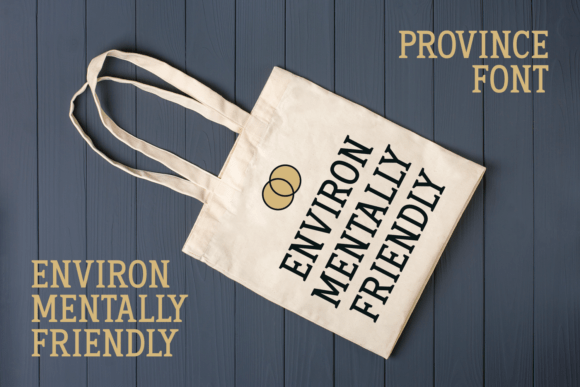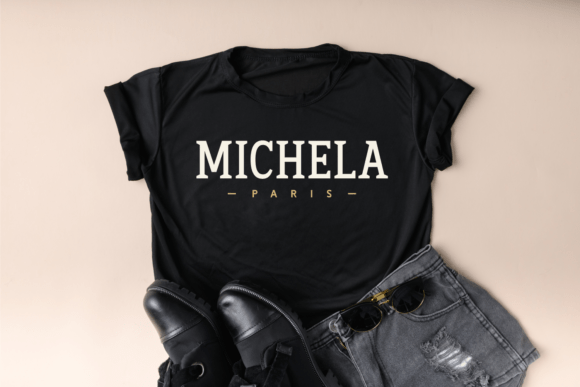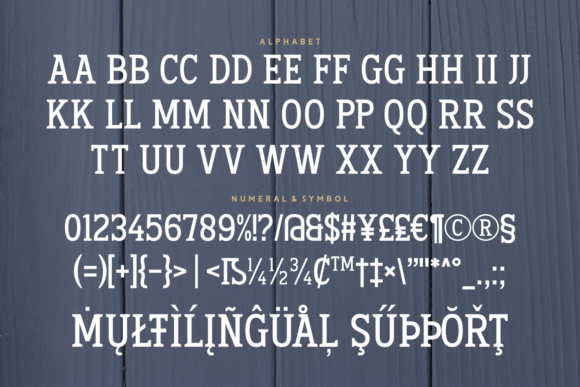
Introduction to Province Font Font
Fonts play a crucial role in design, and the Province Font font is a typeface that brings both character and versatility to any project. Whether you’re working on a branding project, a website, or a print design, the Province Font font offers a unique style that can elevate your work.
A promotional image for βProvince,β a new elegant serif font.
This comfortable and rustic aesthetic perfectly complements the fontβs classic and grounded character, evoking the feeling of autumn and winter even as summer is in full swing .
Key Features of Province Font Font
Why Choose Province Font Font?
The Province Font font is more than just a typeface β it’s a design tool that helps you communicate your message with style and clarity. Its unique character set and versatile design make it suitable for a wide range of applications, from elegant invitations to bold headlines.
With its carefully crafted letterforms and balanced proportions, the Province Font font ensures readability and visual appeal across all mediums.
What makes Province Font font special?
The Province Font font stands out with its unique design, exceptional readability, and versatility across various design applications.